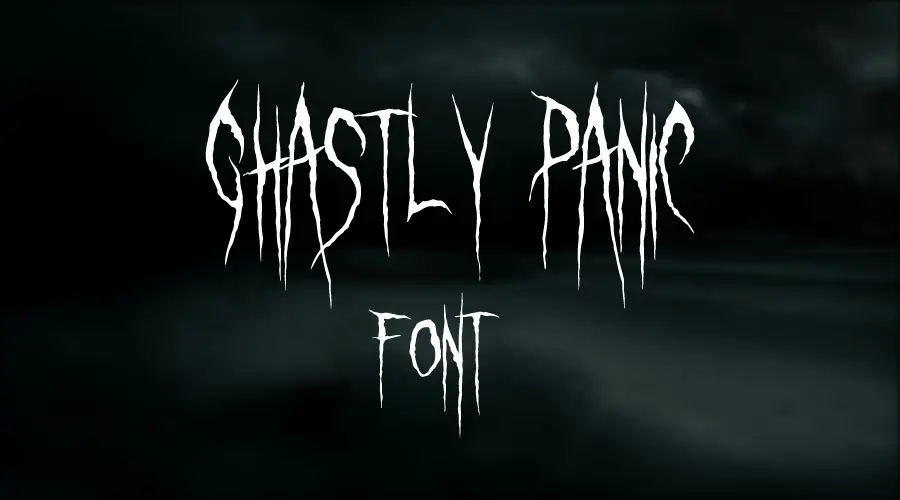
If you are looking for a font that can evoke fear, horror, and panic, then you might want to check out Ghastly Panic Font. This font is a creation of Sinister Fonts, a group of designers who specialize in making fonts for dark and spooky purposes. In this article, we will explore the features, uses, and how to get the font.
About The Font And Its Features
According to the Author, he created this hand-lettered font while watching the movie called “Dawn of the Dead“. He took inspiration from Frank Knows font to create it. Ghastly Panic Font is a hand-lettered font that has a jagged and pointy appearance. The letters are ultra-narrow and irregular, giving them a sense of movement and chaos. The font includes uppercase, lowercase, numerals, punctuation, and some symbols. The font is 100% free for both personal and commercial use.
Where to Use This Ghastly Panic Font
Ghastly Panic Font is suitable for any project that requires a creepy and scary vibe. You can use it for Halloween posters, flyers, invitations, banners, logos, headlines, titles, captions, stickers, labels, and more. The font can also be used for horror-themed games, comics, books, movies, and websites. Just remember this font is intended for specialty and graphic uses. It will look just awful if used in a paragraph format.
Conclusion
Ghastly Panic Font is a horror font that can make your projects stand out with its unique and terrifying style. It is easy to download and use, and it has a wide range of characters to choose from. If you are looking for a font that can make your audience scream in fear or delight, then you should give Ghastly Panic Font a try.